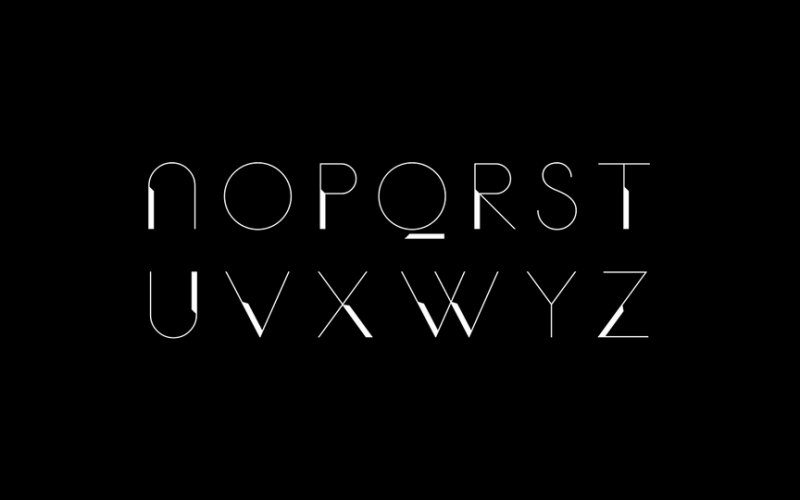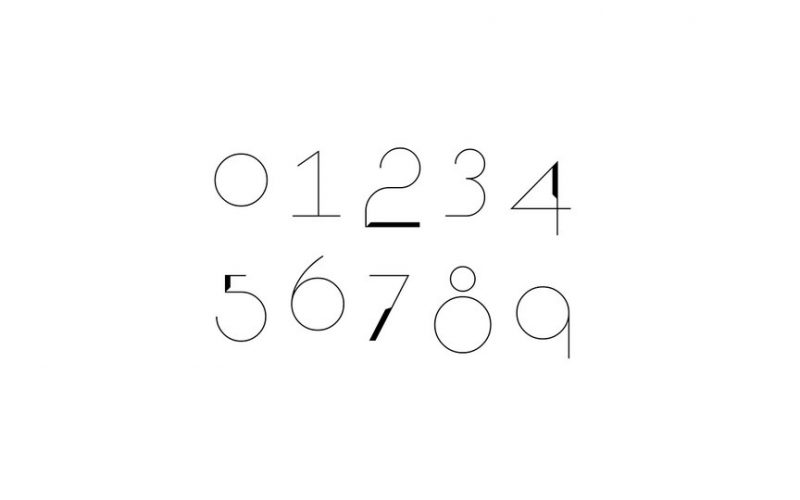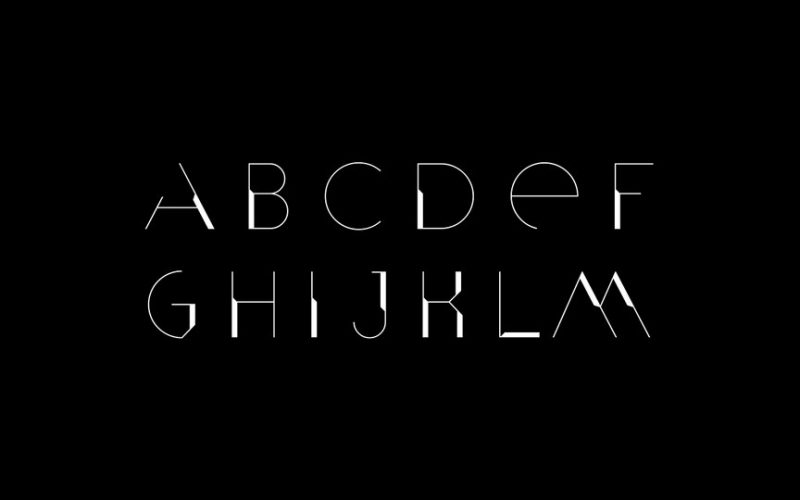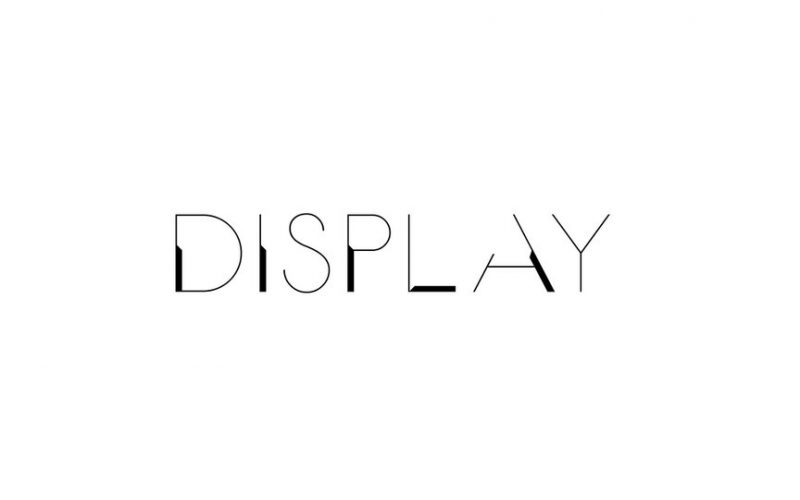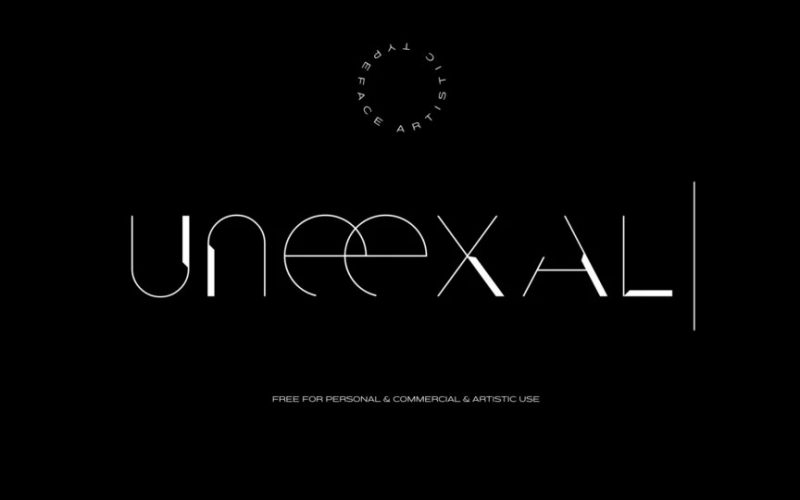
UNEEXAL Free Typeface
If you are designing a logo or any other project, this is a good choice. It suits all types of modern and future designs. Introducing UNEEXAL Typeface. It is designed and shared by Luiz Felipe Souza. The font styles reach from clean to very ornate, which gives you endless design possibilities. All fonts work perfect for many different projects: quotes, blog header, poster, wedding, branding, logo, fashion, apparel, letter, invitation, stationery, etc.